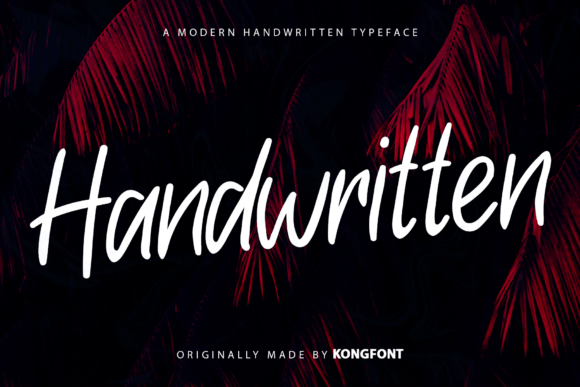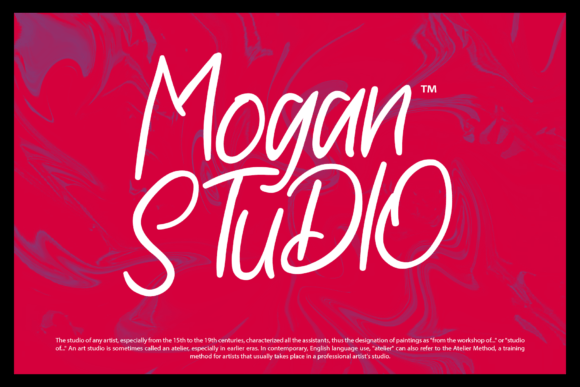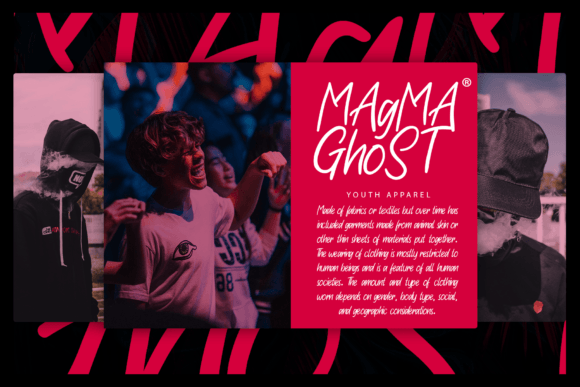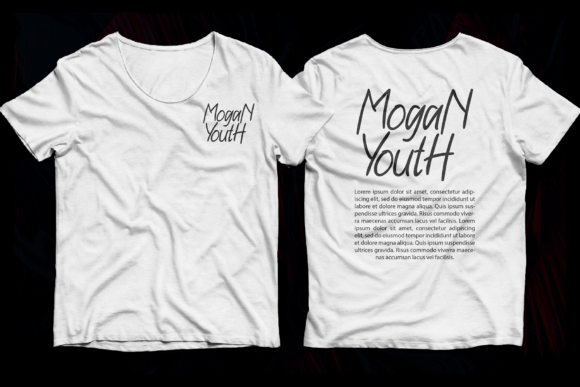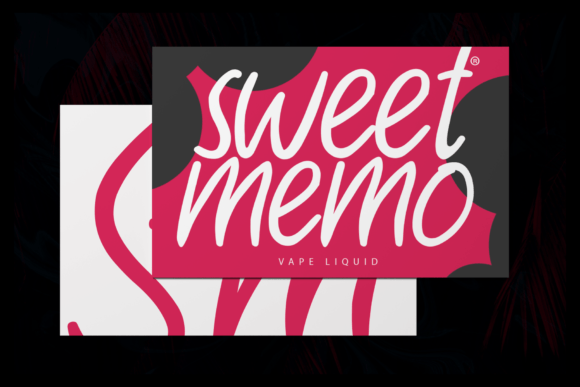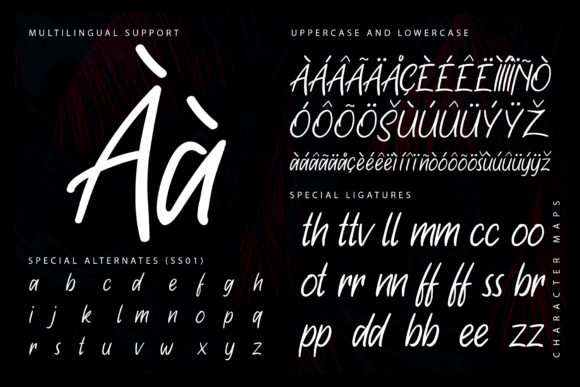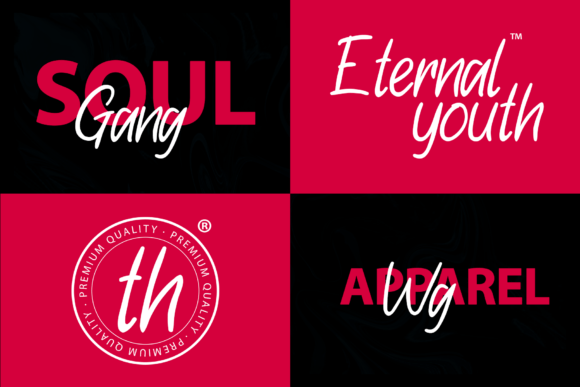
About Handwritten Font
“Handwritten” is a minimal and neat handwritten font designed to bring a clean and straightforward aesthetic to your projects. Its simplicity and versatility make it an excellent choice for a wide range of applications, allowing it to seamlessly enhance diverse design ideas. Whether you’re working on branding, invitations, digital content, or any creative endeavor, “Handwritten” has the capacity to bring your favorite ideas to life.
The minimal and neat qualities of “Handwritten” contribute to its adaptability and readability across various design contexts. Its simplicity makes it a reliable choice when you want the focus to be on the content without sacrificing style.
The PUA encoding of “Handwritten” adds an extra layer of convenience for designers. With easy access to amazing glyphs and ligatures, customization and personalization become straightforward. This feature empowers designers to explore the full range of creative possibilities offered by the font.
Incorporating “Handwritten” into your projects allows you to witness how it enhances and brings your ideas to life. Its clean and minimal design ensures that it complements different styles and themes, making it a versatile font for a diverse range of creative applications.
In summary, “Handwritten” is not just a font; it’s a design asset that provides a minimal and neat aesthetic to your favorite ideas. Its versatility and PUA encoding make it easy to work with, offering a clean and straightforward look that can elevate a wide array of design projects. Embrace the simplicity of “Handwritten” confidently and observe how it adds a touch of clarity and style to your creative endeavors.